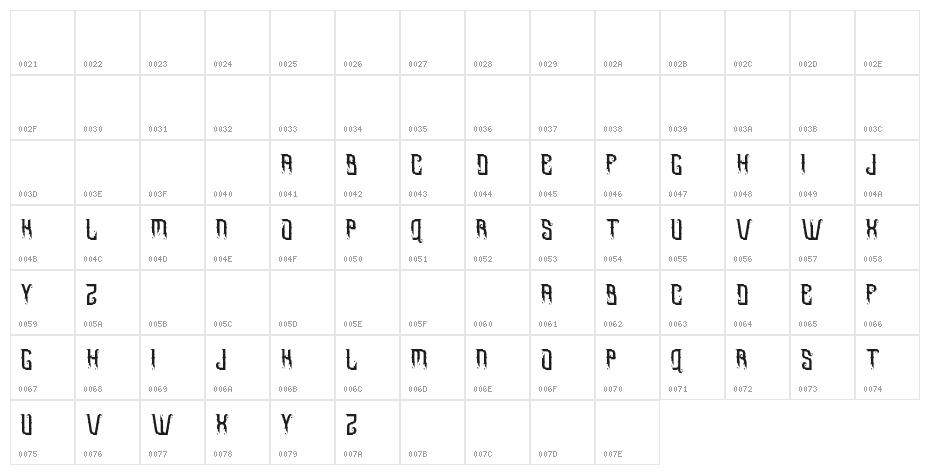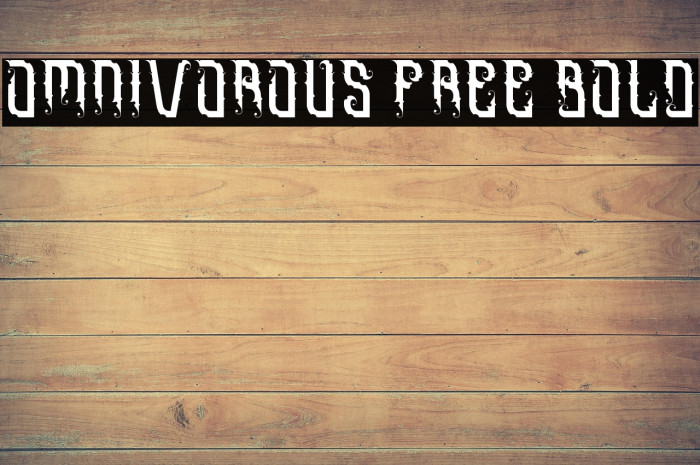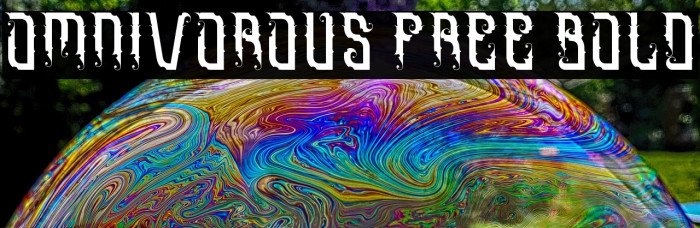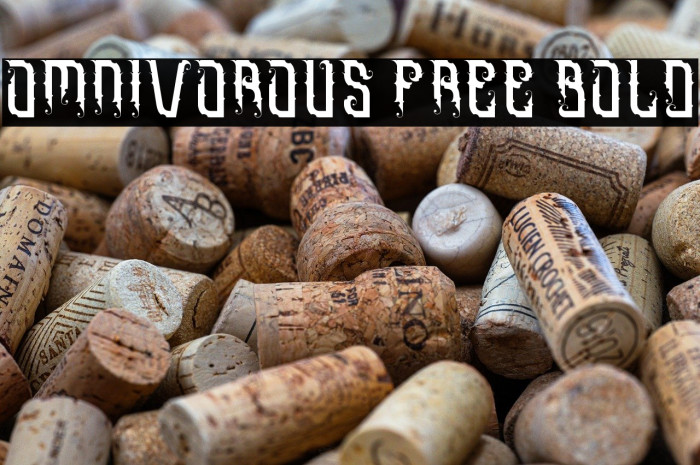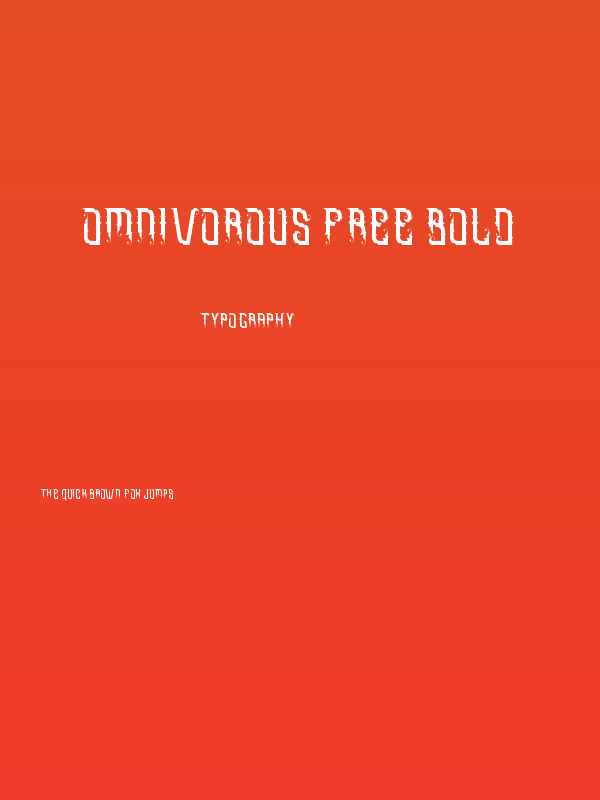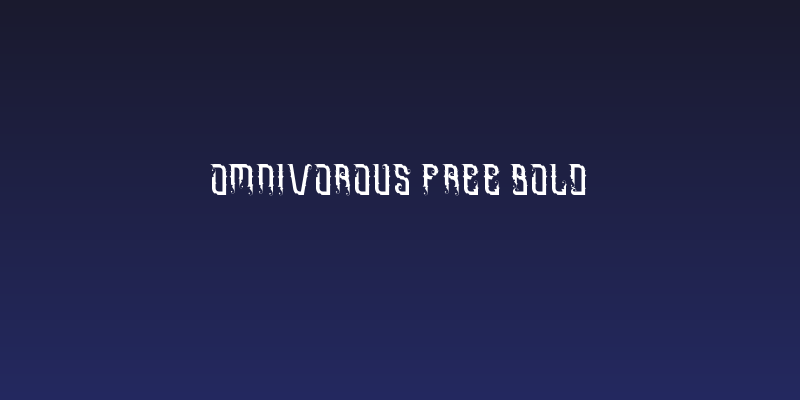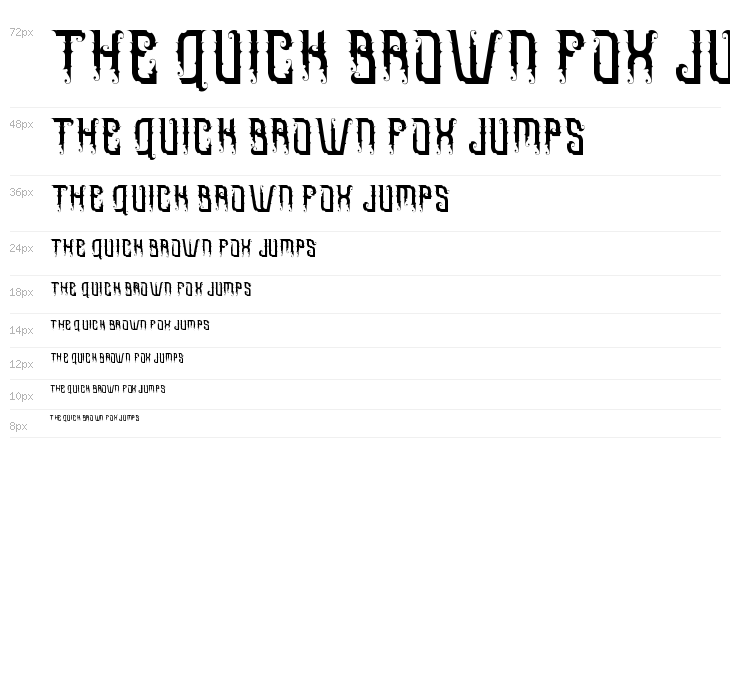
Omnivorous Free Bold Font
Omnivorous Free Bold Description
This font features a bold and decorative style with intricate, swirling embellishments extending from the main strokes of each character. The uppercase letters are particularly striking, with a gothic influence that adds a dramatic flair. The design is highly ornamental, making it suitable for eye-catching displays. The characters maintain a consistent weight, contributing to a cohesive and balanced appearance. The unique flourishes give it a distinctive personality, perfect for projects that require a touch of elegance and creativity.
Proposed ProjectsIdeal for Halloween-themed designs, fantasy book covers, theatrical posters, and artistic branding.